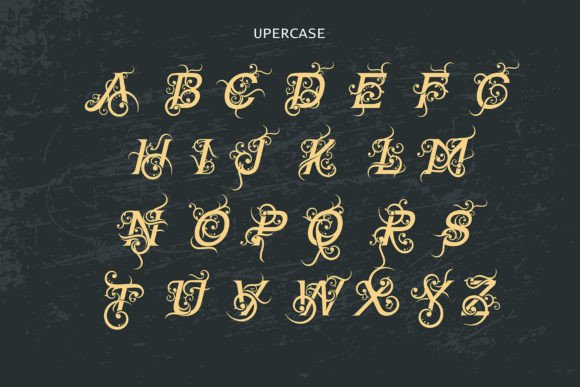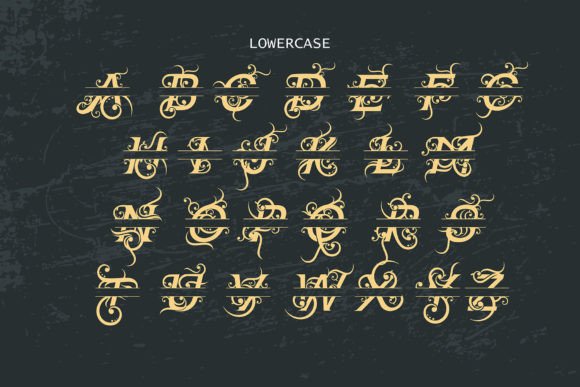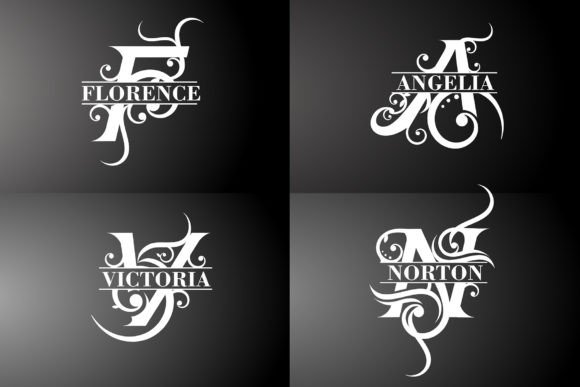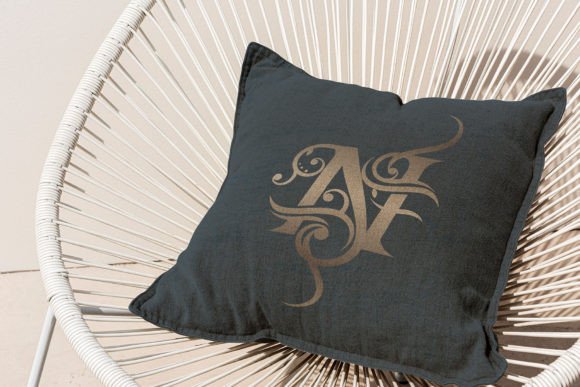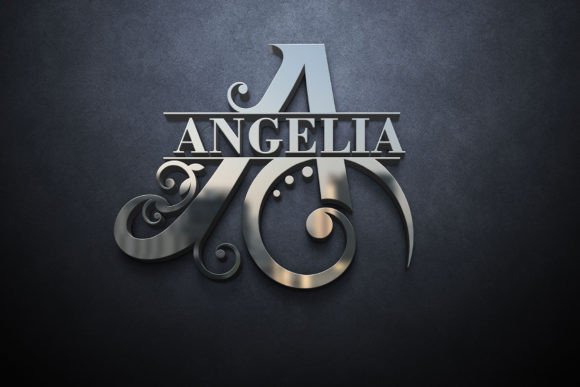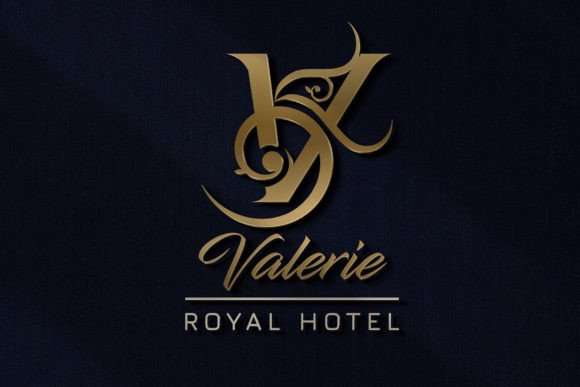
Introducing Angelia Monogram Font: Elevate Your Designs with Luxury and Elegance
In the world of design, typography plays a crucial role in conveying the tone and personality of a brand. For luxury brands, fashion, and beauty, a high-end font can make all the difference. That’s where Angelia Monogram Font comes in – a stunning, modern monogram font that adds a touch of class to any design project. With its intricate details and elegant letterforms, Angelia Monogram is the perfect choice for designers and crafters looking to create sophisticated and luxurious designs.
What Makes Angelia Monogram Font Special?
Angelia Monogram Font is a meticulously crafted font that boasts intricate details and elegant letterforms. Its modern design ensures that it stays ahead of the curve, making it perfect for contemporary luxury brands. The font’s monogram style allows for endless creative possibilities, from custom logos and branding to packaging and advertising materials.
Key Features of Angelia Monogram Font
- Luxurious and Modern Design: Angelia Monogram Font features a sleek and sophisticated design that exudes luxury and elegance.
- Intricate Details: The font’s intricate details add a level of sophistication, making it perfect for high-end designs.
- Elegant Letterforms: The elegant letterforms ensure that the font is easy to read and understand, while also conveying a sense of luxury.
- Monogram Style: The monogram style allows for creative freedom, making it perfect for custom logos, branding, and more.
- Scalable: The font is highly scalable, ensuring that it looks great in any size or application.
Use Cases for Angelia Monogram Font
Angelia Monogram Font is versatile and can be used in a variety of design projects, including:
- Luxury Brand Logos: Create custom logos for luxury brands that exude elegance and sophistication.
- Fashion and Beauty: Use the font in fashion and beauty designs, such as packaging, advertising, and branding materials.
- Wedding and Event Design: Add a touch of luxury to wedding and event designs, such as invitations, programs, and decor.
- Stationery and Packaging: Use the font in stationery and packaging designs to add a level of sophistication.
Why Choose Angelia Monogram Font?
Angelia Monogram Font is a luxurious and modern monogram font that adds a touch of class to any design project. With its intricate details and elegant letterforms, it’s perfect for creating high-end designs for luxury brands, fashion, and beauty. Whether you’re a designer or crafter, Angelia Monogram Font is a must-have in your font collection. So why wait? Get your hands on Angelia Monogram Font today and elevate your designs to the next level!